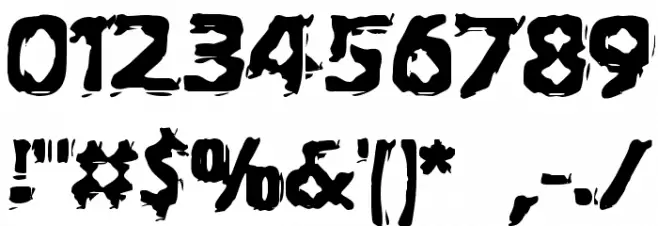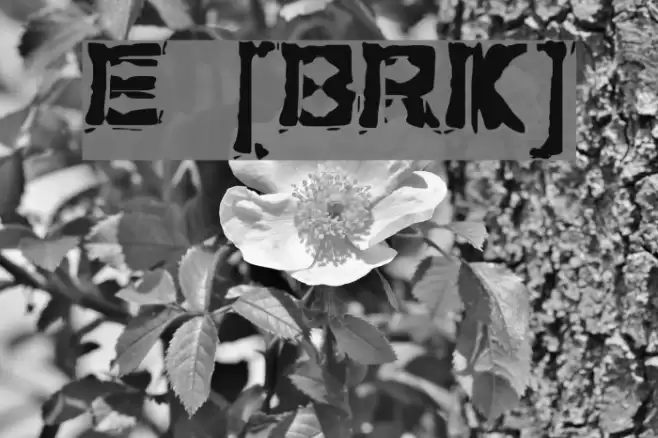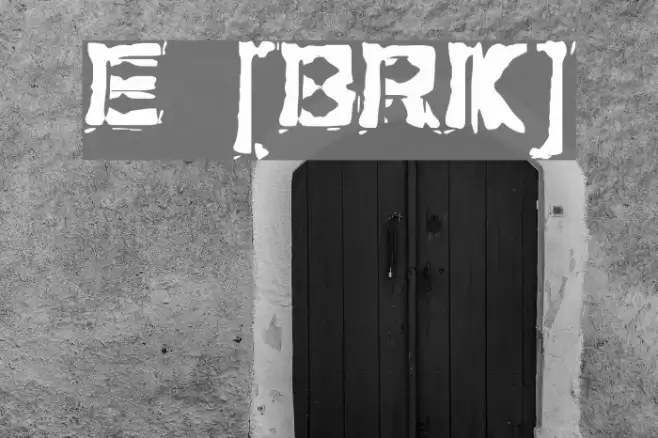
Extraction [BRK] Font
Extraction [BRK] Description
This font features a rugged, distressed appearance with irregular edges and a bold presence. The characters are heavily stylized, giving an impression of being weathered or eroded, which adds a dynamic and edgy feel to the text. The uppercase and lowercase letters maintain a consistent style, with the uppercase being slightly more pronounced. Numbers and special characters follow the same design ethos, ensuring uniformity across all glyphs. The font's unique texture makes it stand out, ideal for projects that require a strong visual impact.
A bold, distressed font with rugged, irregular edges from Broken fonts.
- Proposed Projects: Ideal for posters, album covers, video game graphics, and any design needing a bold, edgy look.